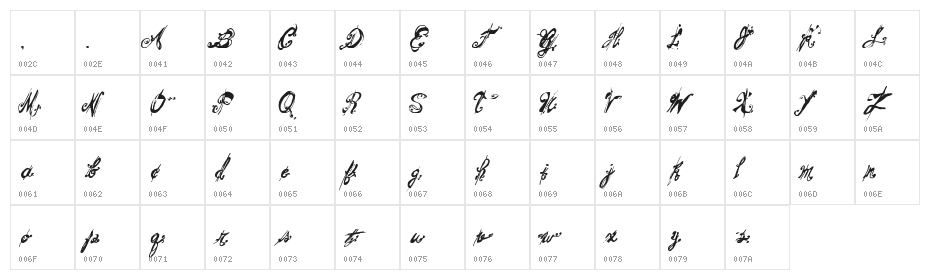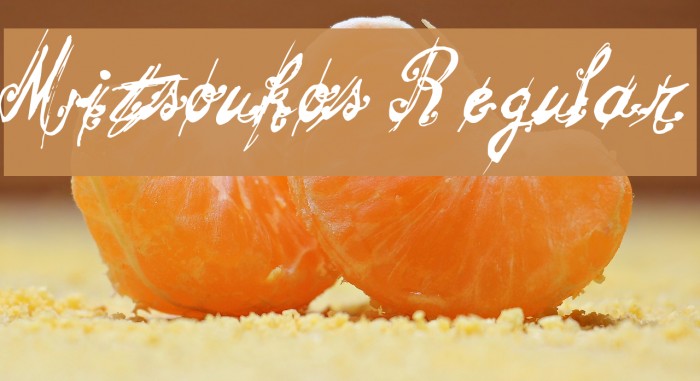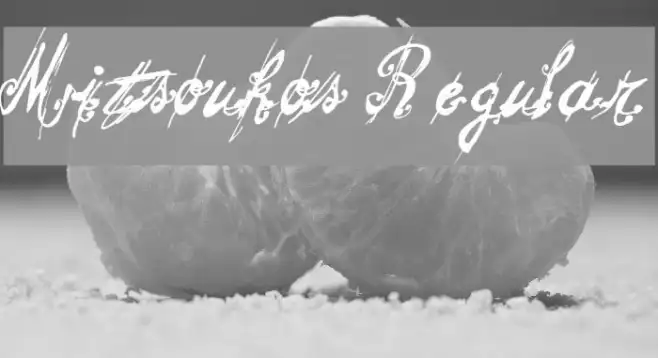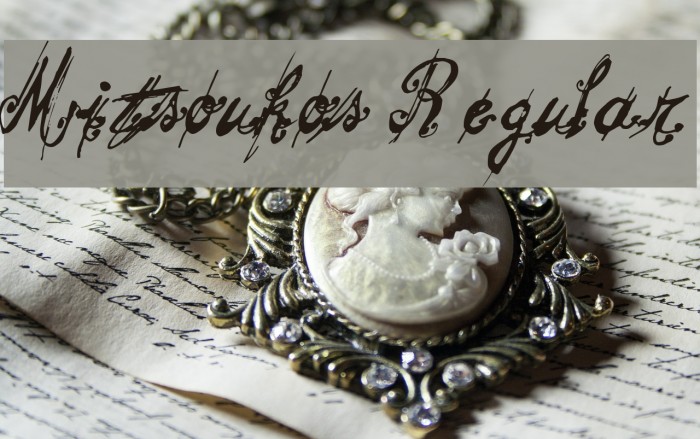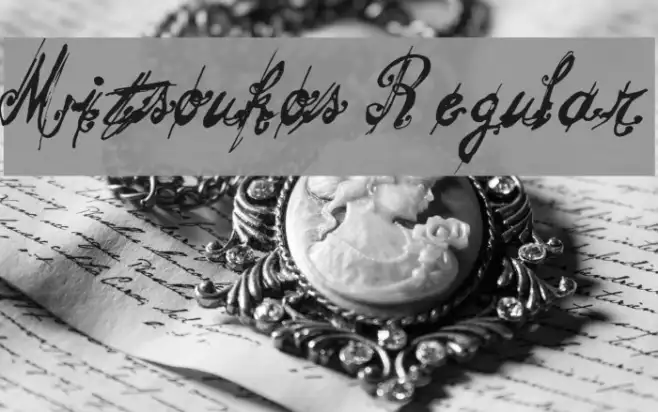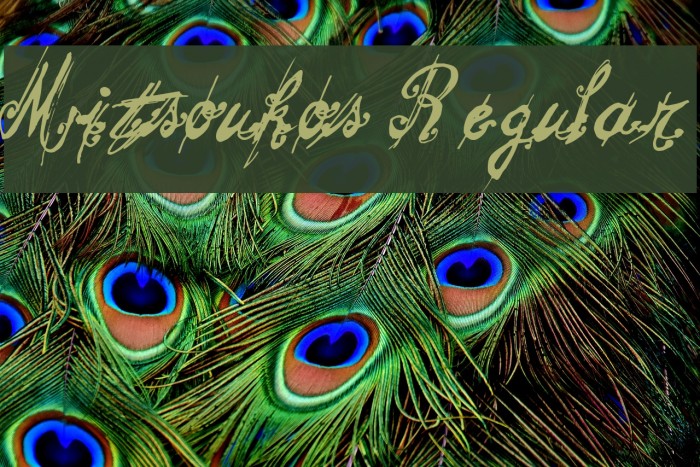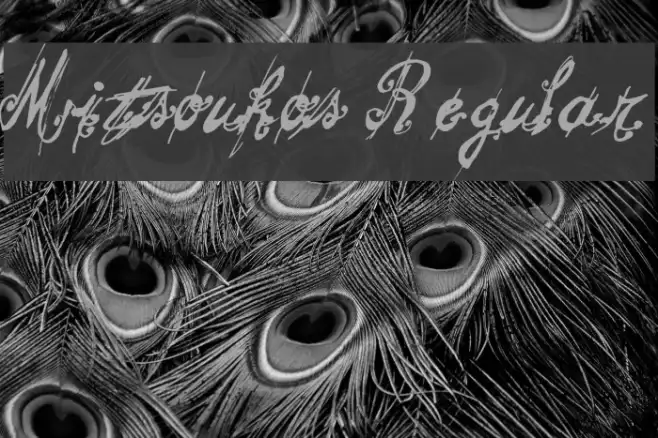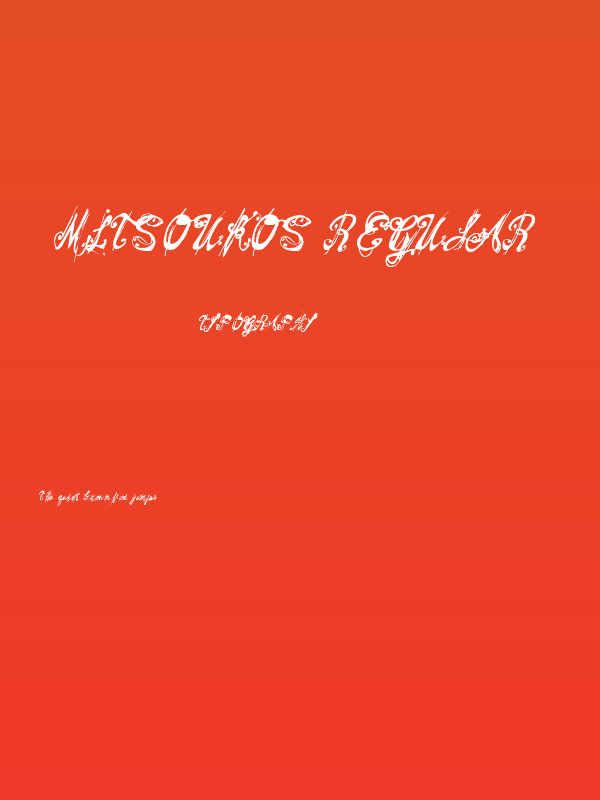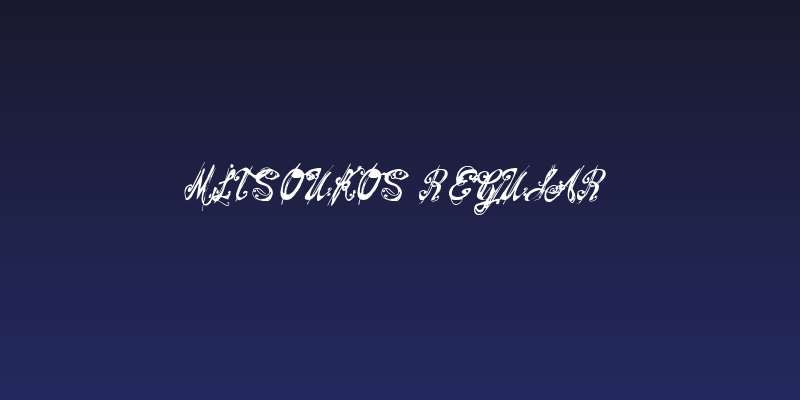
Mitsoukos Regular Font
Mitsoukos Regular Description
This font features an intricate and artistic design, characterized by its ornate and decorative style. The letters are embellished with flourishes and swirls, giving it a highly stylized and unique appearance. The uppercase and lowercase letters maintain a consistent decorative theme, with each character displaying a sense of movement and elegance. The font's complexity and detailed design make it stand out, offering a dramatic and eye-catching look. It is well-suited for projects that require a touch of sophistication and flair.
| Proposed Projects | Ideal for wedding invitations, luxury branding, artistic posters, and decorative headlines. |